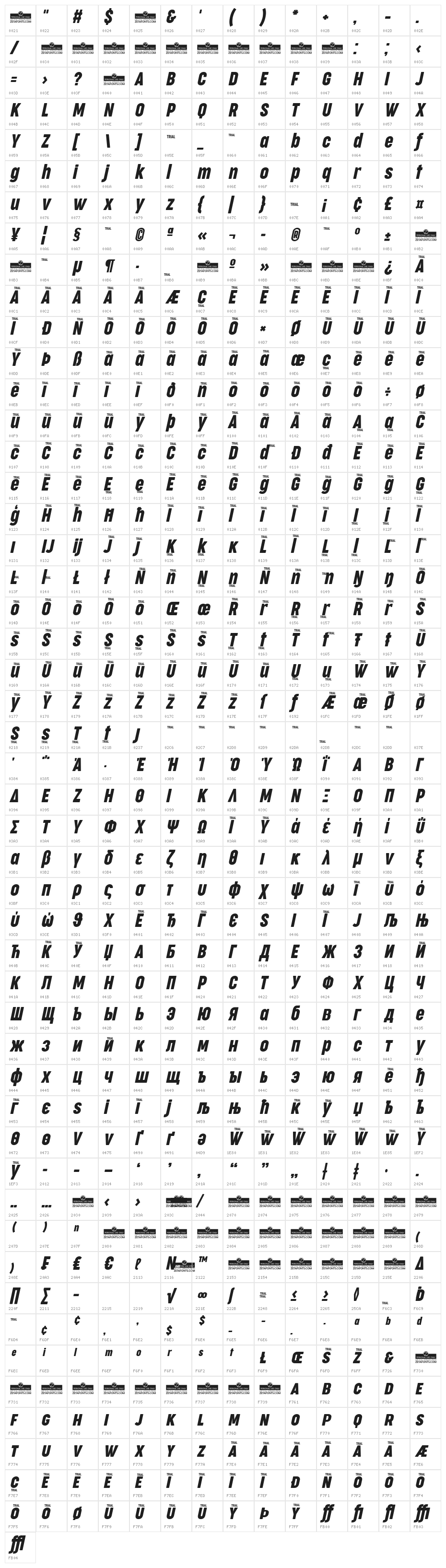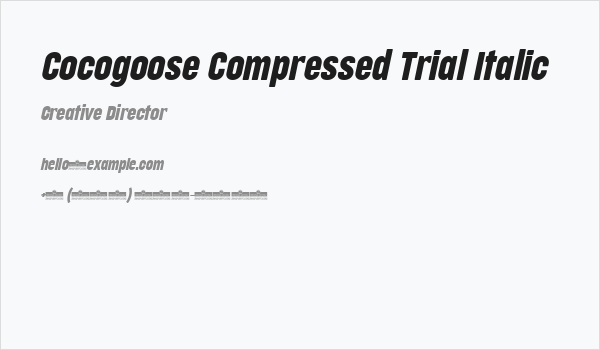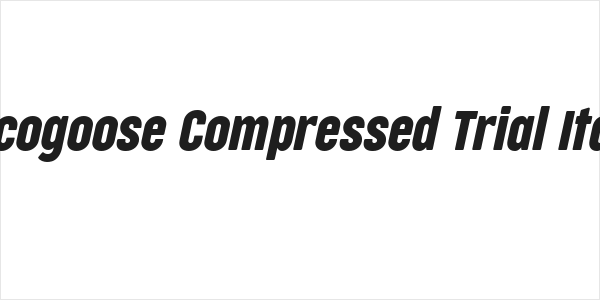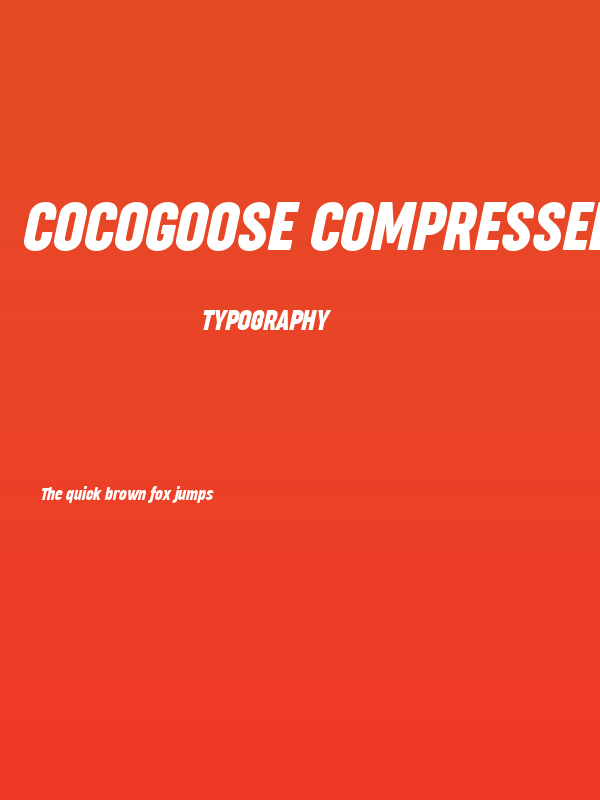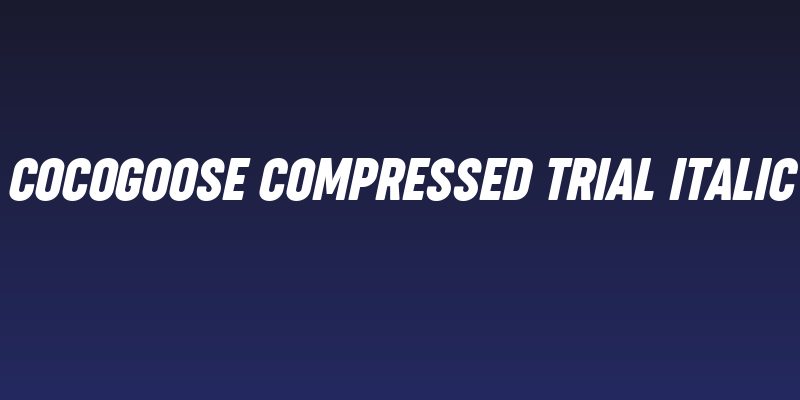
Cocogoose Compressed Trial Italic Font
Cocogoose Compressed Trial Italic Description
This font exhibits a bold and modern aesthetic with a compressed and italicized style. The uppercase and lowercase letters are designed with a strong, impactful presence, making them ideal for attention-grabbing headlines. The characters are slightly slanted, adding a dynamic and forward-moving feel. The font maintains a consistent stroke width, providing a uniform appearance across all characters. The special characters are crafted with the same boldness and style, ensuring cohesion throughout. This typeface is suitable for projects that require a contemporary and assertive look.
| Proposed Projects | Ideal for branding, advertising, posters, and any project requiring a strong visual impact. |